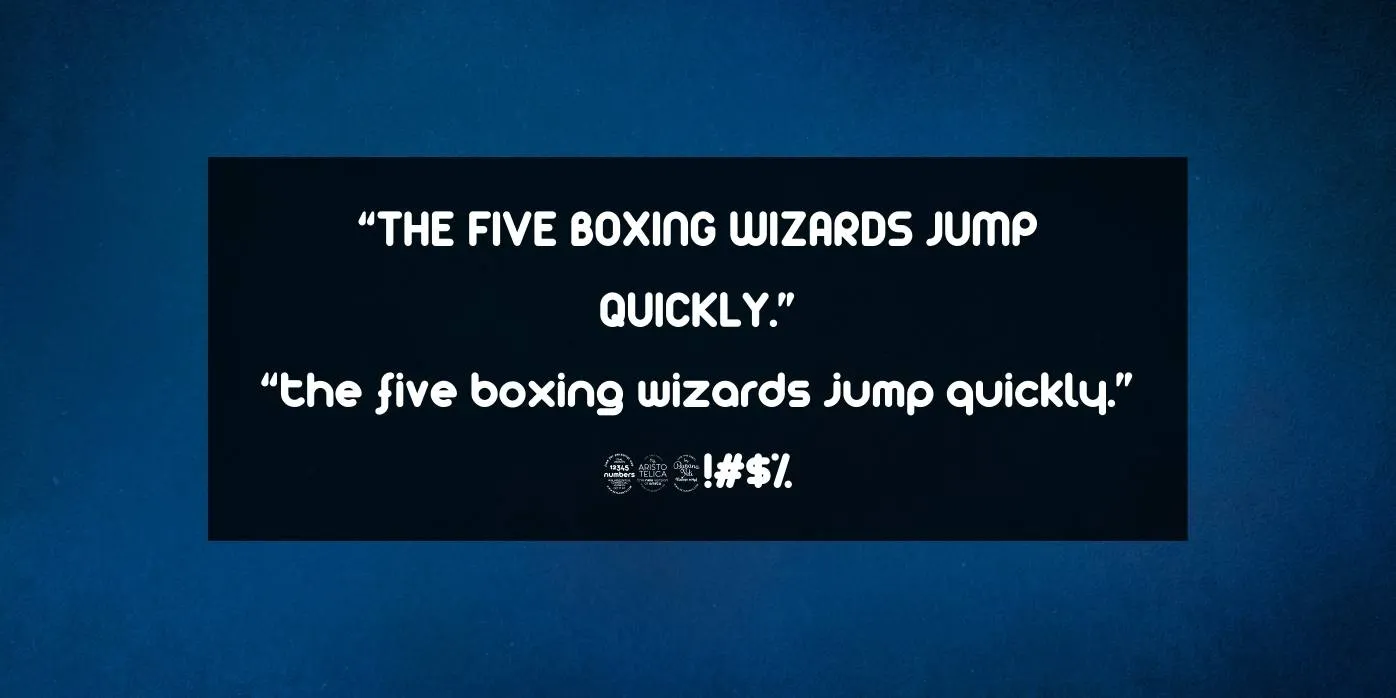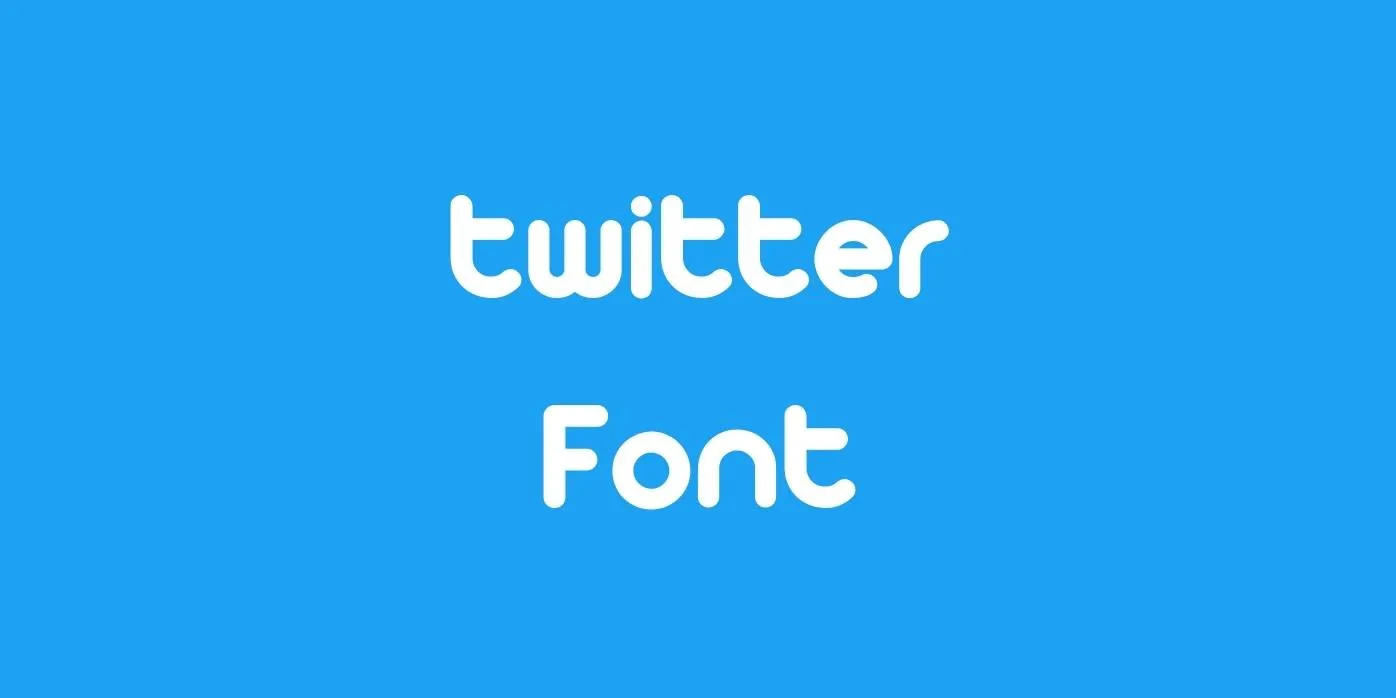
Twitter Font
Here, we discuss a modern typeface Twitter Font that belongs to the display typeface. The main designer of this family is Maniackers Design. The release date of this family is on October 14, 2010. This family has available in four weights: light, regular, semibold, and bold.
All of the fonts include a Latin Extended-A character set. This typeface also supports Cyrillic and Greek characters. Its copy and paste function is perfect for many designs. The main aim to design Twitter Font was to create a semi-condensed display with a tall x-height for impact in small sizes and legibility in large ones.
The result achieved by the designers is both elegant and functional. The tight spacing between letters gives the text a clean look, while the slightly rounded corners lend it a friendly appearance. Its generator tool is perfect for many designs.